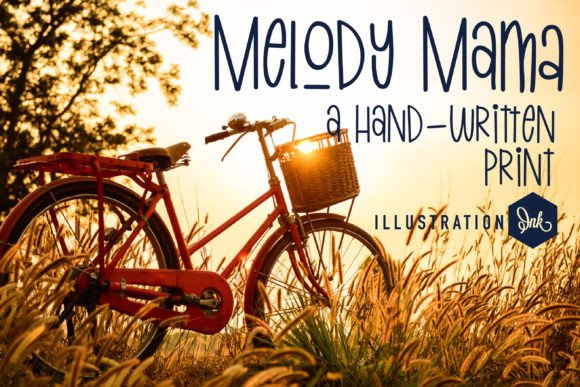
Introducing Melody Mama Font: The Playful Script for Creative Expressions
Journey into the world of Melody Mama Font, a hand-crafted, hand-printed script that exudes a youthful charm and boundless creativity. With its wide spacing and lively flow, this font sparks joy and adds a touch of whimsy to any project. Whether you're a seasoned designer, a passionate crafter, or simply seeking a unique and expressive typeface, Melody Mama Font is your perfect companion.
From the moment you lay your eyes on Melody Mama Font, you'll be captivated by its enchanting allure. Its wide spacing creates a sense of openness and airiness, inviting your imagination to dance freely. The playful and vibrant characters bring a touch of magic to digital designs, presentations, greeting cards, and countless other creative endeavors.
Step into a world where creativity knows no bounds with Melody Mama Font. Its versatility makes it the perfect choice for a diverse range of projects. Craft captivating social media posts that pop, create stunning invitations that leave a lasting impression, or design unique logos that stand out from the crowd. With Melody Mama Font, your imagination is the only limit.
Let Melody Mama Font become your go-to font for expressing your individuality and making a statement. Its playful nature adds a touch of delight to any project, while its wide spacing ensures readability and clarity. Whether you're creating personalized gifts, designing engaging marketing materials, or simply expressing your artistic flair, Melody Mama Font is your perfect partner in creativity.